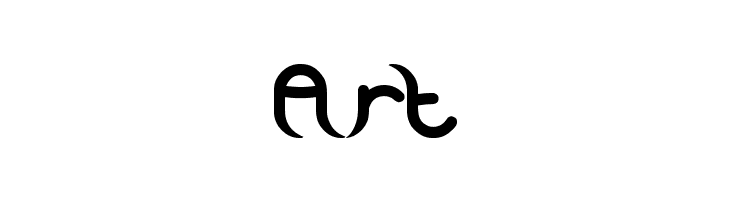
( Fonts by www.pixelsagas.com - Neale Davidson )
A decorative, fantasy-inspired font with stylized, rune-like characters.
( Dan Thorup - www.danthorup.dk )
A bold, modern sans-serif font with rounded edges and consistent character height.
( Dan Thorup - www.danthorup.dk )
A bold, italicized sans-serif font with a modern and sleek design.
( Dan Thorup - www.danthorup.dk )
A sleek, modern italic font with a condensed width and medium contrast.
( Dan Thorup - www.danthorup.dk )
A modern, geometric sans-serif font with tall, narrow characters and uniform stroke width.
( Dan Thorup - www.danthorup.dk )
A modern, clean sans-serif font with uniform stroke width and cohesive design.
( Dan Thorup - www.danthorup.dk )
A modern, italic sans-serif font with a sleek and dynamic style.
A jagged, edgy font with sharp, angular strokes for a rebellious look.
A bold, spiky, and gothic-inspired font with high contrast and intricate details.
( www.sentil.de )
A playful, tentacle-inspired font with bold, dynamic characters.
A bold, three-dimensional font with a playful and dynamic style.
A bold, three-dimensional font with a filled, shadowed design for impactful visuals.
A distressed, grunge-style font with bold, textured characters.
A whimsical, decorative font with a fantasy-like, medieval influence.
A whimsical and artistic font with exaggerated curves and playful details.
An ornate and decorative font with intricate swirls and flourishes.
An ornate and decorative font with intricate details and a whimsical touch.
( Fonts by Kimberly Geswein - kimberlygeswein.com )
A playful, casual handwritten font with smooth curves and a personal touch.
( Fonts by Kimberly Geswein - kimberlygeswein.com )
A bold, playful handwritten font with rounded, energetic letterforms.
( Fonts by Levi Halmos )
A bold, angular font with a futuristic and dynamic design.
A bold, playful font with rounded outlines and a double-layered border.
( A Spoonful of Sugar - www.asos.jp.org/ )
A futuristic, geometric font with rounded edges and a sleek design.
A decorative and artistic font with bold, fluid strokes and intricate details.
A digital, segmented font with a futuristic, LED display style.
A digital, segmented font with an italic slant, inspired by LED displays.